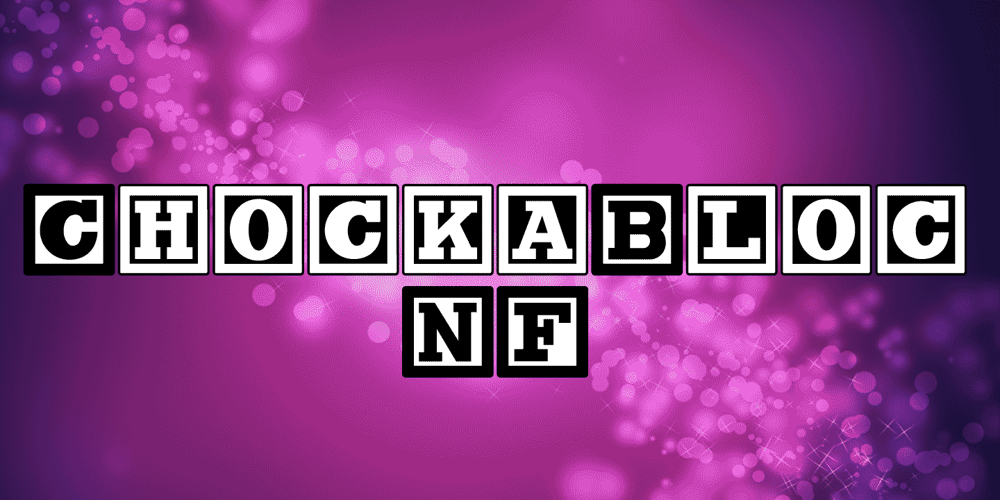
Chockabloc NF Font Family was designed by published by Nick’s Fonts. Chockabloc NF contains 1 styles and family package options. What else is there to say? Children’s wooden blocks inspired this playful face. Use and enjoy! Both versions support the Latin 1252, Central European 1250, Turkish 1254 and Baltic 1257 codepages.